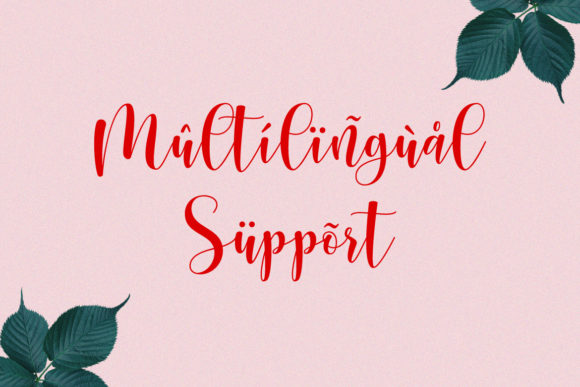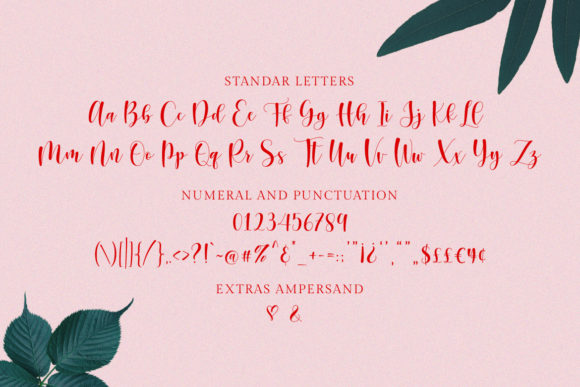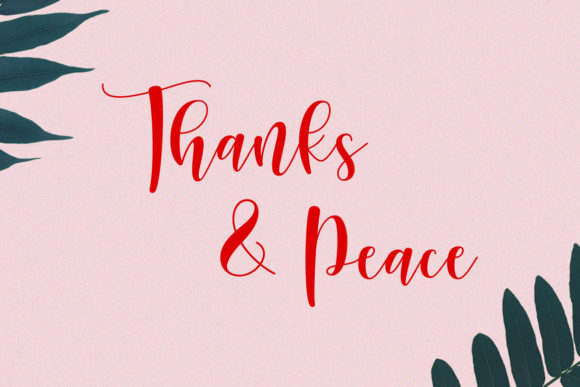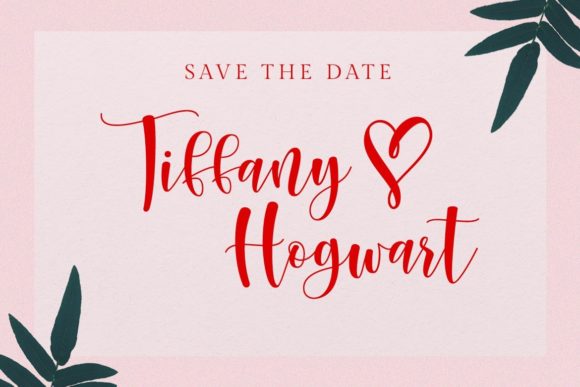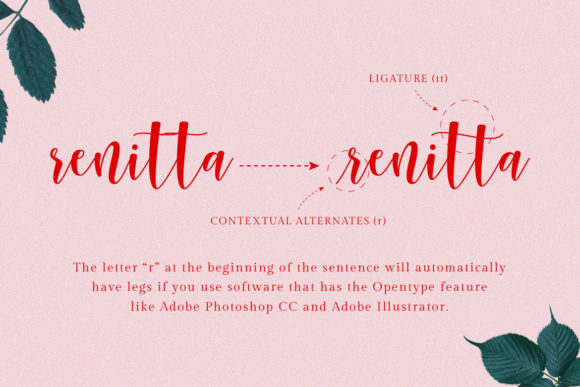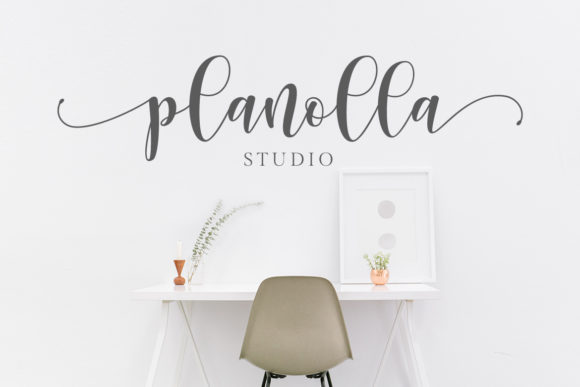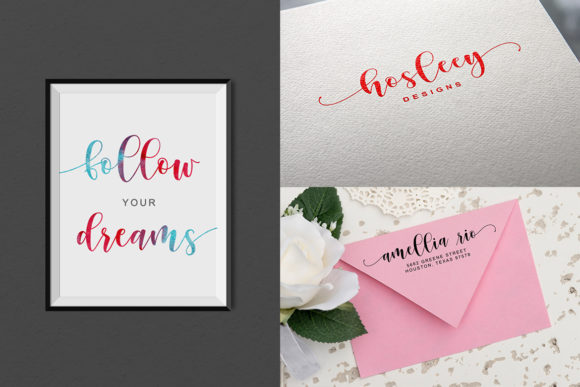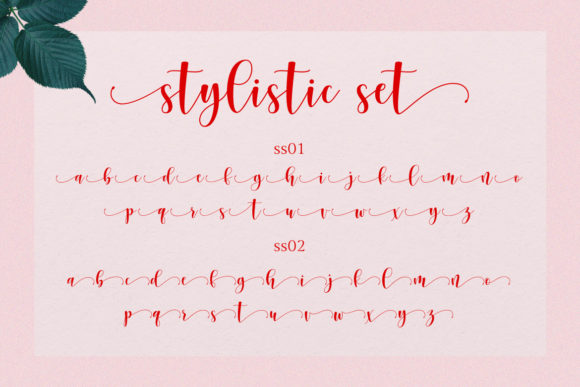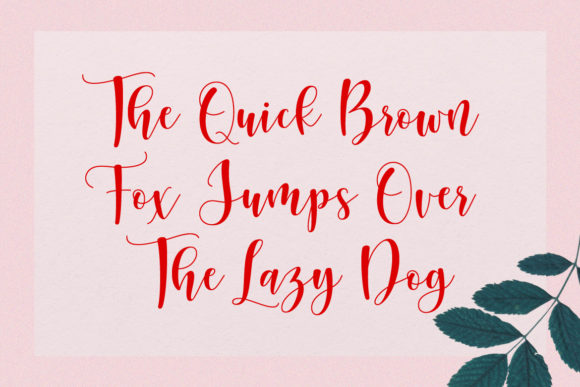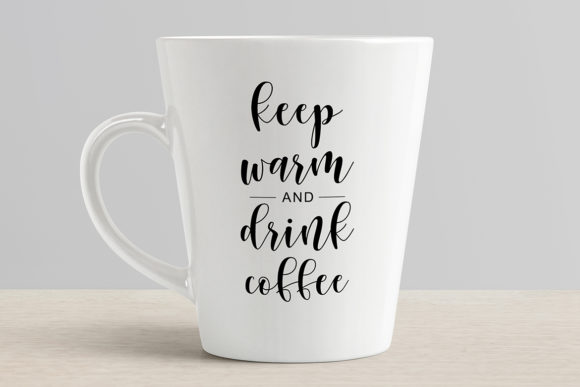
Sunberry Font
About Sunberry Font
Sunberry is a fun and cute handwritten font with a bold and charming feel. It will add a romantic touch to any crafting project.